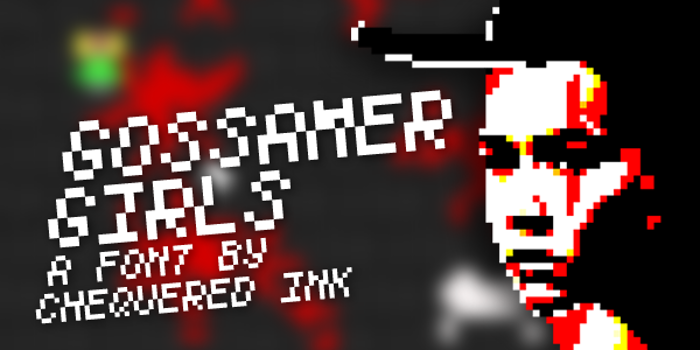
Gossamer Girls Font
Gossamer Girls Font is a Pixel font and was created on . Since then, it has been downloaded 836 times and added to 19 collections. 3 people have liked Gossamer Girls Font and given it a thumbs up.